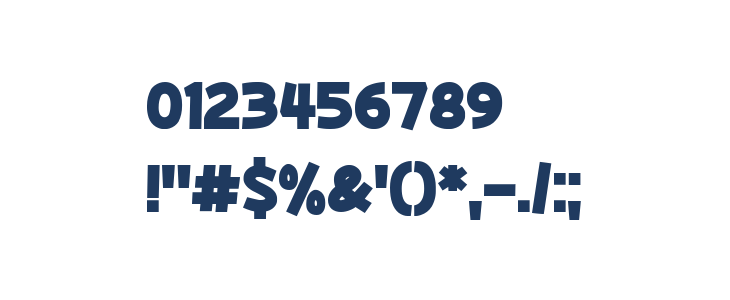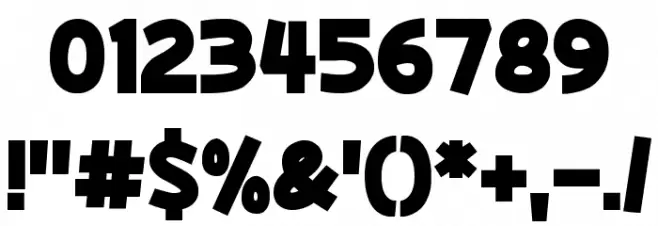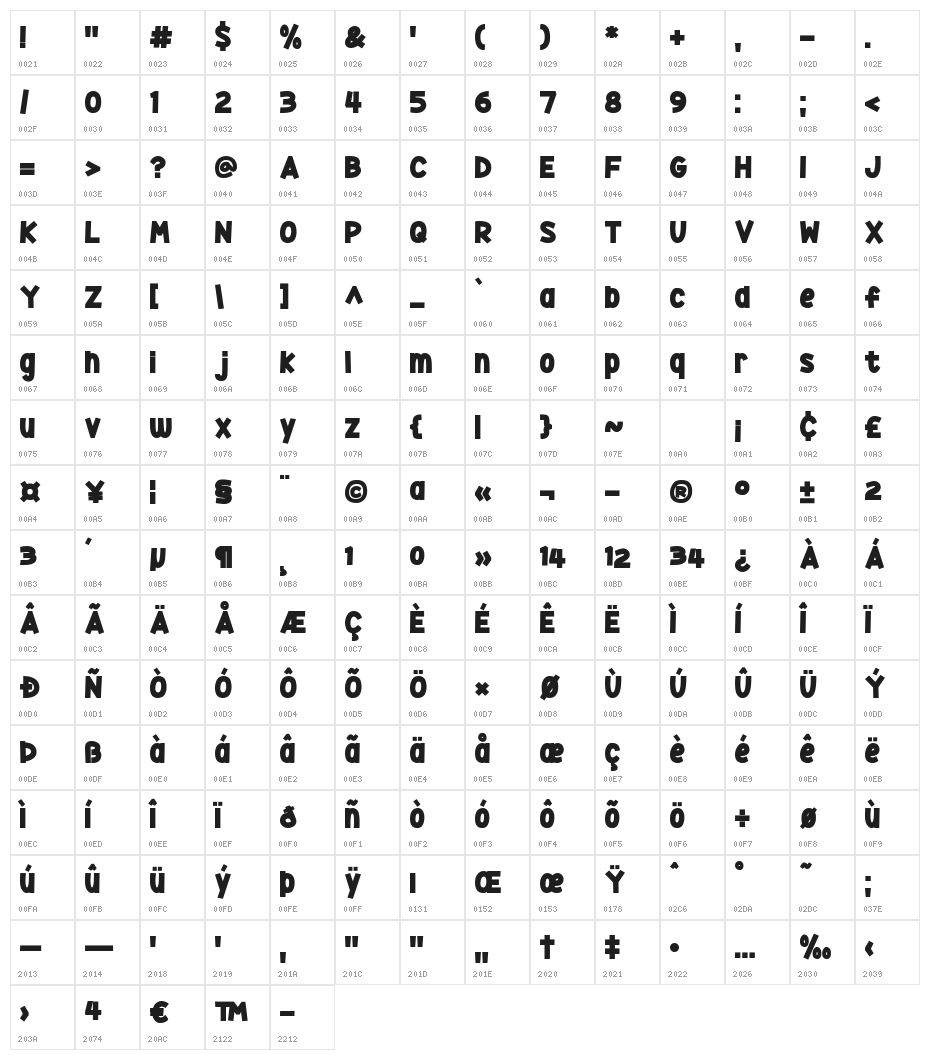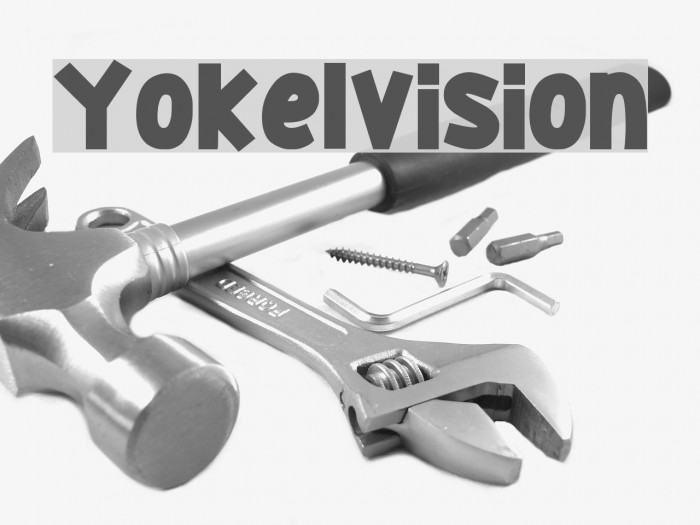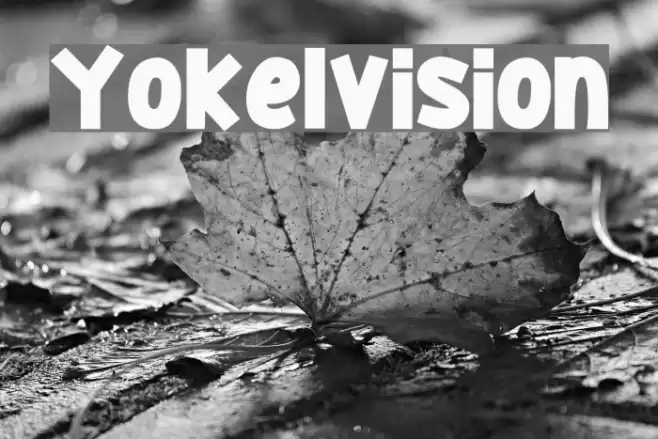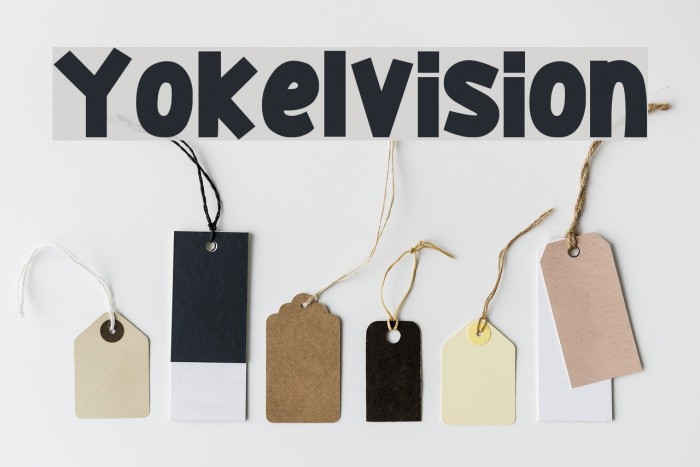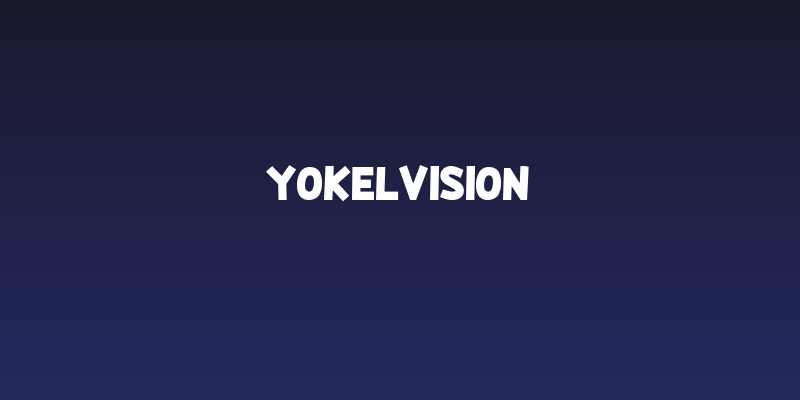
Yokelvision Font
Yokelvision Description
This font features bold, rounded characters with a playful and quirky style. The uppercase and lowercase letters are consistent in their boldness, creating a strong visual impact. The numbers and special characters maintain the same bold, rounded style, ensuring uniformity across all elements. The font's thick strokes and lack of serifs give it a modern and approachable appearance, making it suitable for a variety of creative applications. Its unique character shapes add a touch of whimsy, making it ideal for projects that require a fun and engaging aesthetic.
| Overall Style | Playful, Modern |
| Proposed Projects | Ideal for children's books, playful branding, posters, and social media graphics. |